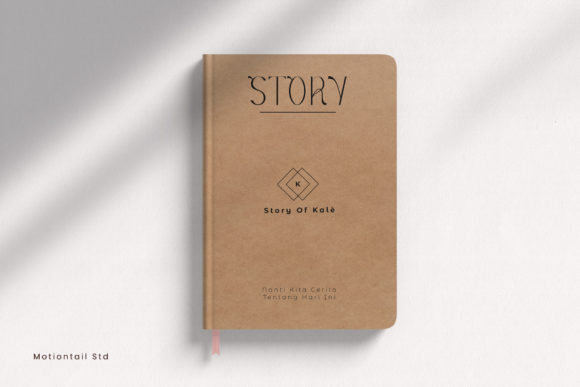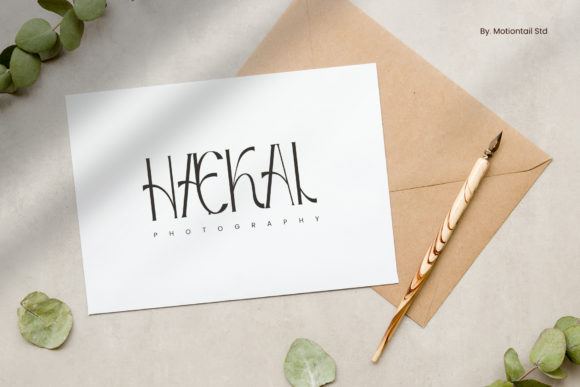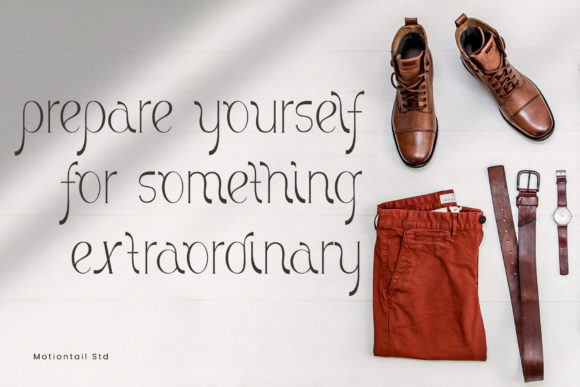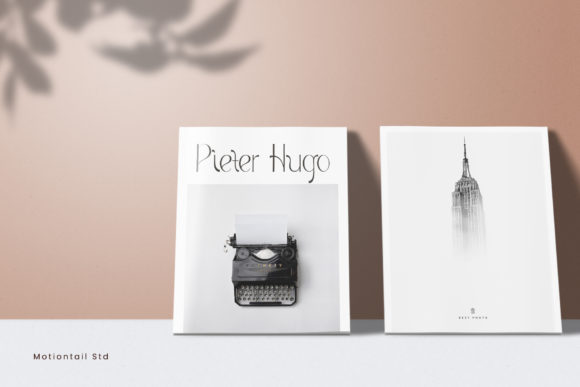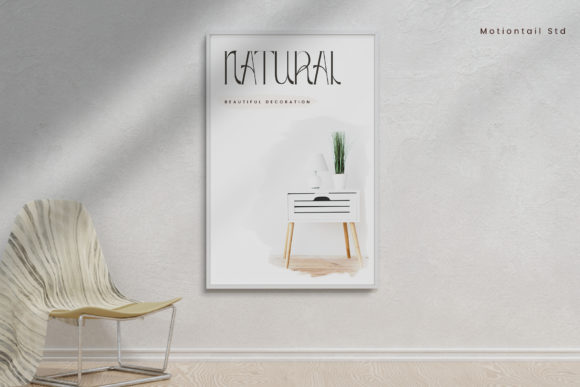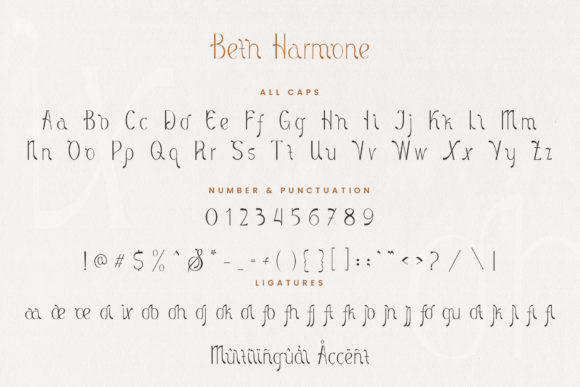
Beth Harmone Font: Elevate Your Designs with Elegance and Sophistication
In the world of typography, fonts play a crucial role in conveying the tone and aesthetic of a design. For designers and crafters seeking a modern and elegant display font with a touch of classic sophistication, Beth Harmone Font is an exceptional choice. Inspired by the dramatic flair of blackletter fonts, Beth Harmone brings a unique blend of contemporary style and timeless elegance to the table.
What Makes Beth Harmone Font Stand Out?
Beth Harmone Font is not just another addition to the vast library of digital fonts; it stands out for several reasons:
- Modern and Elegant Design: Beth Harmone boasts a sleek and modern design that is perfect for a wide range of design applications, from luxury branding to wedding invitations, and from advertising to packaging.
- Blackletter Accents: What sets Beth Harmone apart is its incorporation of accents inspired by traditional blackletter fonts. This adds a layer of depth and character to the font, making it more intriguing and visually appealing.
- PUA Encoded: The font is PUA (Private Use Area) encoded, which means that users can easily access and use the additional glyphs and swashes without the need for complicated software or technical knowledge. This feature significantly enhances the versatility of the font.
Applications of Beth Harmone Font
The versatility of Beth Harmone Font makes it suitable for a myriad of design projects. Here are some of the areas where this font can truly shine:
- Branding and Logotypes: The elegant and modern feel of Beth Harmone makes it an excellent choice for creating brand identities that wish to convey sophistication and luxury.
- Wedding and Event Stationery: For designers creating wedding invitations, programs, or any event-related materials, Beth Harmone offers the perfect blend of modern style and classic charm.
- Advertising and Marketing Materials: The distinctive look of Beth Harmone can help advertisements and marketing materials stand out, capturing the audience’s attention with its unique aesthetic.
- Packaging Design: For product packaging that requires a touch of elegance and sophistication, Beth Harmone can be a valuable asset in a designer’s toolkit.
Tips for Using Beth Harmone Font Effectively
To make the most out of Beth Harmone Font, consider the following tips:
- Experiment with Swashes: Take advantage of the PUA encoded feature to experiment with different swashes and glyphs. This can add a personal touch to your designs and make them more distinctive.
- Mix and Match: Don’t be afraid to combine Beth Harmone with other fonts to create a unique visual hierarchy. Its elegant design pairs well with a variety of font styles.
- Consider the Context: While Beth Harmone is versatile, it’s essential to consider the context and purpose of your design. Ensure that the font aligns with the message you wish to convey.
Beth Harmone Font is a remarkable addition to any designer’s collection, offering a perfect blend of modern elegance and classic sophistication. Its unique blackletter accents, combined with PUA encoding for easy access to glyphs and swashes, make it a versatile and valuable tool for a wide range of design applications. Whether you’re working on branding, wedding stationery, advertising, or packaging, Beth Harmone has the potential to elevate your designs and make them truly memorable.
So, if you’re looking to infuse your projects with a touch of elegance and a dash of modern style, Beth Harmone Font is definitely worth exploring. Its ability to stand out in a crowded digital landscape makes it an excellent choice for designers and crafters aiming to create visually stunning and impactful designs.